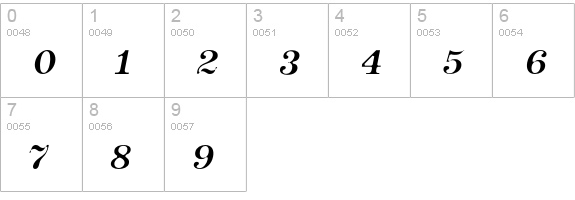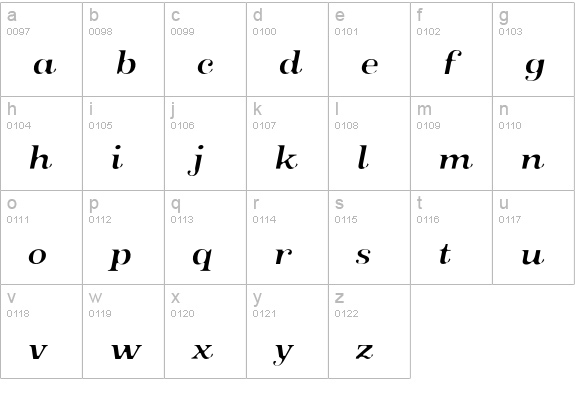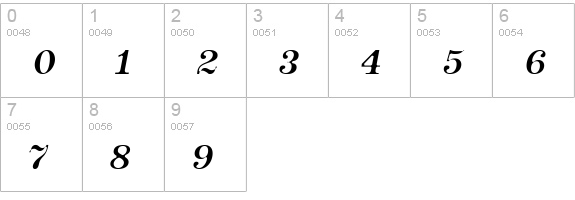
Oxtail Italic Font Details
Oxtail Italic is a distinctive, italic variant in the Oxtail typeface family \xE2\x80\x94 well suited to design and typography projects.
Oxtail Italic is a stunning and elegant font that exudes sophistication and charm. Its flowing italic style adds a touch of grace to any design project, making it perfect for invitations, branding, and more. The delicate curves and unique letterforms of Oxtail Italic set it apart from other fonts, giving your text a distinct and refined look. Best of all, Oxtail Italic is completely free to download at FontsMarket.com. This means you can add this beautiful font to your collection without any cost, allowing you to elevate your design projects without breaking the bank. Don't miss out on this fantastic opportunity to enhance your work with the timeless beauty of Oxtail Italic. Download it today and start creating stunning designs with ease!